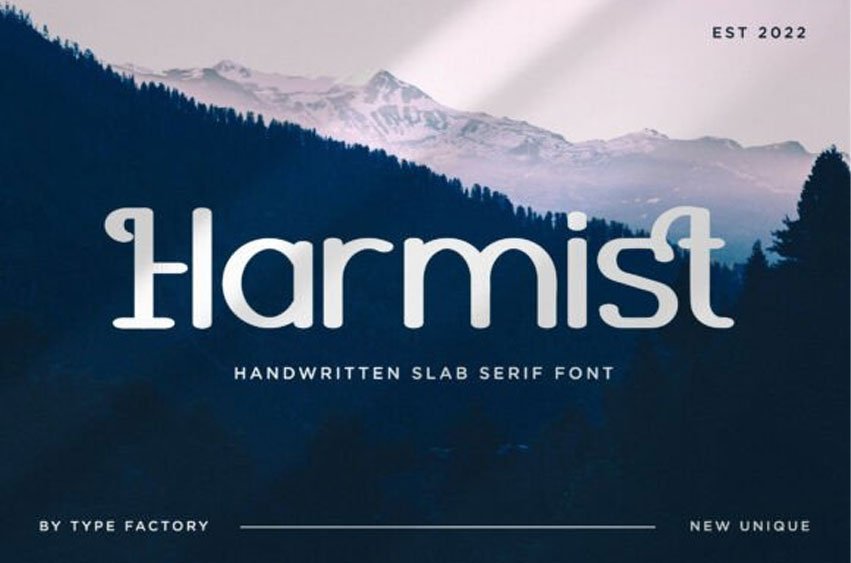
Harmist Font is a handwritten slab serif typeface that combines strong serif structure with soft and organic curves. The letterforms feature a slightly irregular shape that gives a natural and approachable visual character.
This typeface is designed to balance bold slab serif construction with a relaxed handwritten feel. It works well for branding, packaging, editorial layouts, and creative display typography.
Harmist is suitable for lifestyle branding, organic products, food packaging, apparel design, and promotional materials that require a friendly yet structured typographic style.